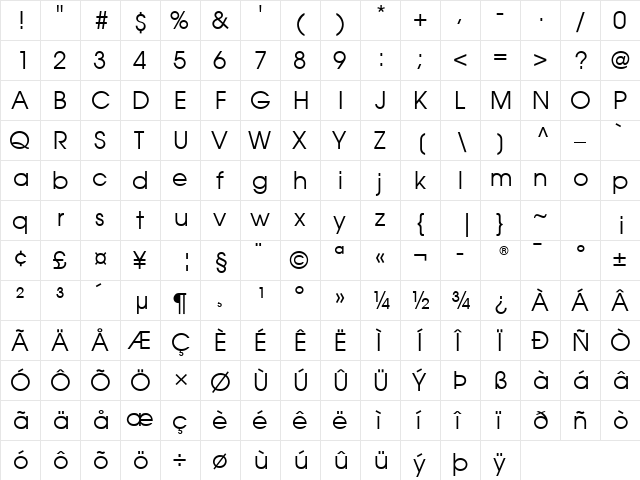
Avant Garde S Book
Design Context for Avant Garde S Typeface
Avant Garde S offers clean, dependable letterforms without strong stylistic allegiance, making it a practical choice for designers who need flexibility.
Pro Tip: Pair Avant Garde S with a font of contrasting weight or personality to build a more expressive typographic hierarchy.